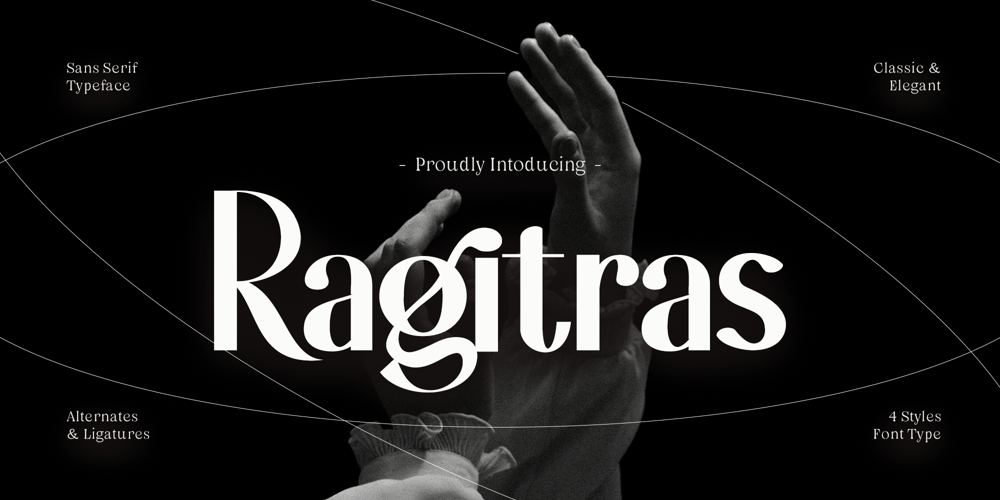
Ragitras
Ragitras font
Ragitras Font Family was designed by Frederik Aristaputra and published by Creatifont Studio. Ragitras contains 4 styles and family package options. Ragitras – is a captivating display serif font that exudes sophistication. Featuring four weight styles (regular, italic, bold, and bold italic), Ragitras offers the perfect balance of elegance and versatility for your design projects. Ragitras goes beyond the ordinary with its unique character shapes. Each letter boasts a touch of individuality, adding a touch of personality to your headlines, logos, and branding materials. Ragitras is Ideal for: Logos and branding that demand attention and convey a sense of luxury, Elegant wedding invitations and stationery that leave a lasting impression, High-end packaging designs that elevate your product’s perceived value, Magazine layouts and marketing materials that crave a touch of timeless sophistication, Any design project where a unique and beautiful serif font is desired.A SUMMARY OF WHAT’S INCLUDED: Standard Character A-Z, a-z, 0-9, Punctuation & symbols Regular, Italic, Bold, and Bold Italic Style Ligatures and Alternates Included Multilingual Support Works on PC & Mac Simple installation Accessible in Adobe Creative Suite (Ai, Ps, Id, etc.) even work on Microsoft Word. PUA Encoded Characters – Fully accessible without additional design software. ————————————————-SOFTWARE REQUIREMENTS:Most software readily supports the regular fonts within the package — To unlock the full potential of the extensive collection of standard ligatures (custom connected letters) found in the script font, you can use any software with OpenType font compatibility.To generate all ligatures, please go open Adobe Illustrator – Type – Glyphs.Please drop me a message if you have trouble regarding either installing or using this font.🌟If you come across any issues or notice anything we might have overlooked while using this product, please feel free to reach out to us. We greatly value your feedback as it helps us enhance and refine our products. Thank you!